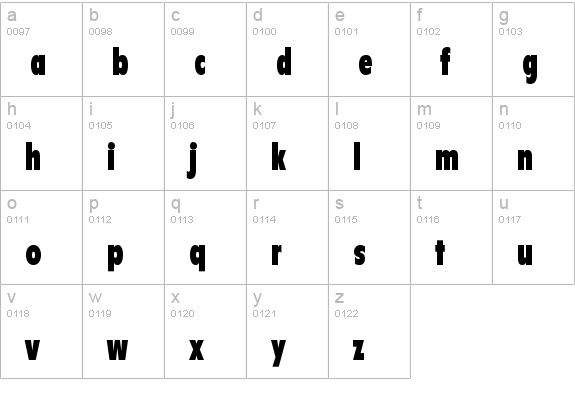
Flyer Extra Black Condensed is a maximum-weight, dramatic, condensed-width variant in the Flyer typeface family \xE2\x80\x94 well suited to maximum-impact headlines, posters, and packaging.
Flyer Extra Black Condensed is a sleek and modern font that exudes sophistication and style. With its bold and condensed design, this font is perfect for creating eye-catching headlines, titles, and logos that demand attention. The sharp edges and clean lines of Flyer Extra Black Condensed give it a contemporary and edgy look that is sure to make your design stand out. The best part? Flyer Extra Black Condensed is available for free download at FontsMarket.com. This means you can easily add this stunning font to your collection without breaking the bank. Whether you're working on a professional project or a personal design, Flyer Extra Black Condensed is a versatile font that will elevate your work to the next level. Download it today and give your designs a bold and impactful touch with Flyer Extra Black Condensed.